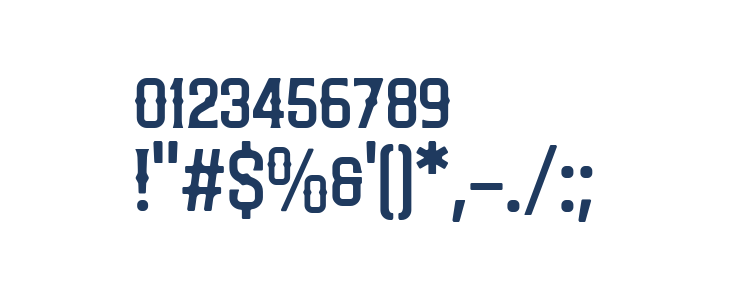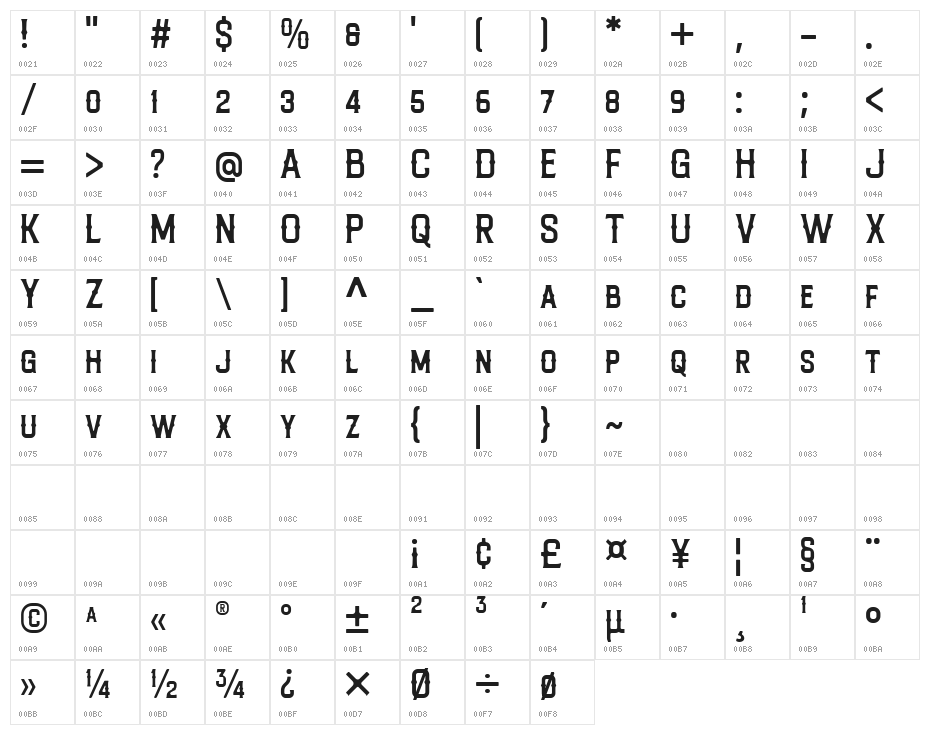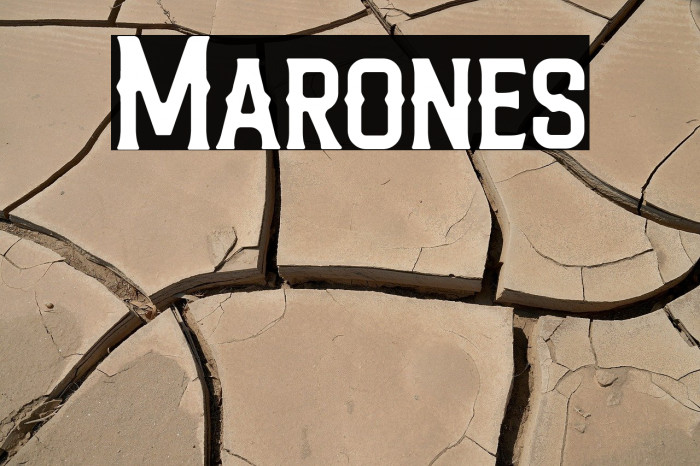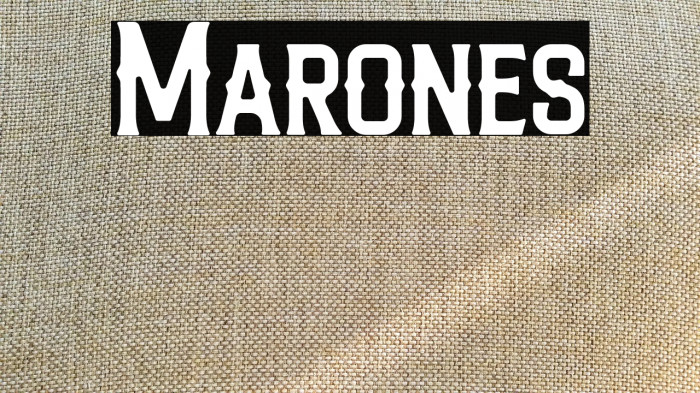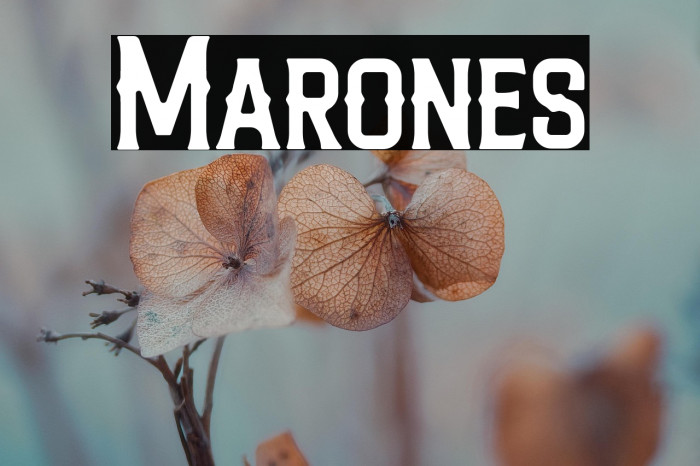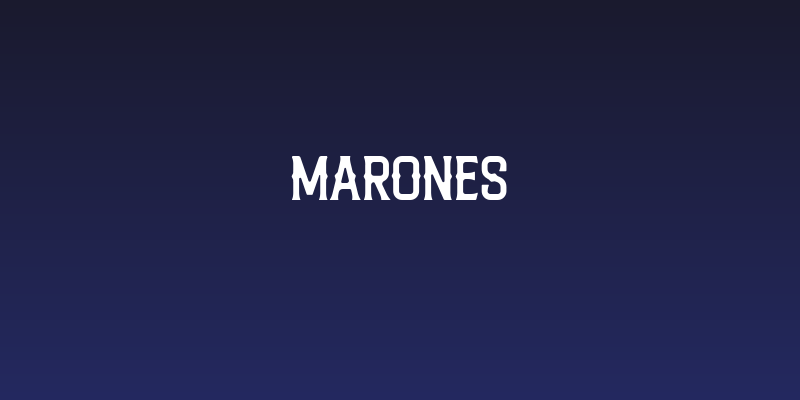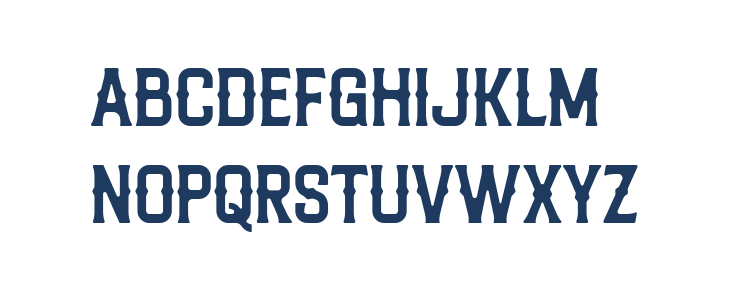
Marones Font
Marones Description
This font features a bold and robust design with a strong presence, characterized by its thick strokes and angular serifs. The uppercase letters exhibit a uniform height, creating a cohesive and structured appearance. The numerals are equally bold, ensuring readability and impact. Special characters maintain the same weight and style, providing consistency across all elements. The font's design is reminiscent of vintage signage, offering a sense of nostalgia while maintaining modern readability. Its boldness and unique character shapes make it suitable for attention-grabbing headlines and branding.
| Proposed Projects | Ideal for branding, posters, signage, and any project requiring a bold, vintage aesthetic. |